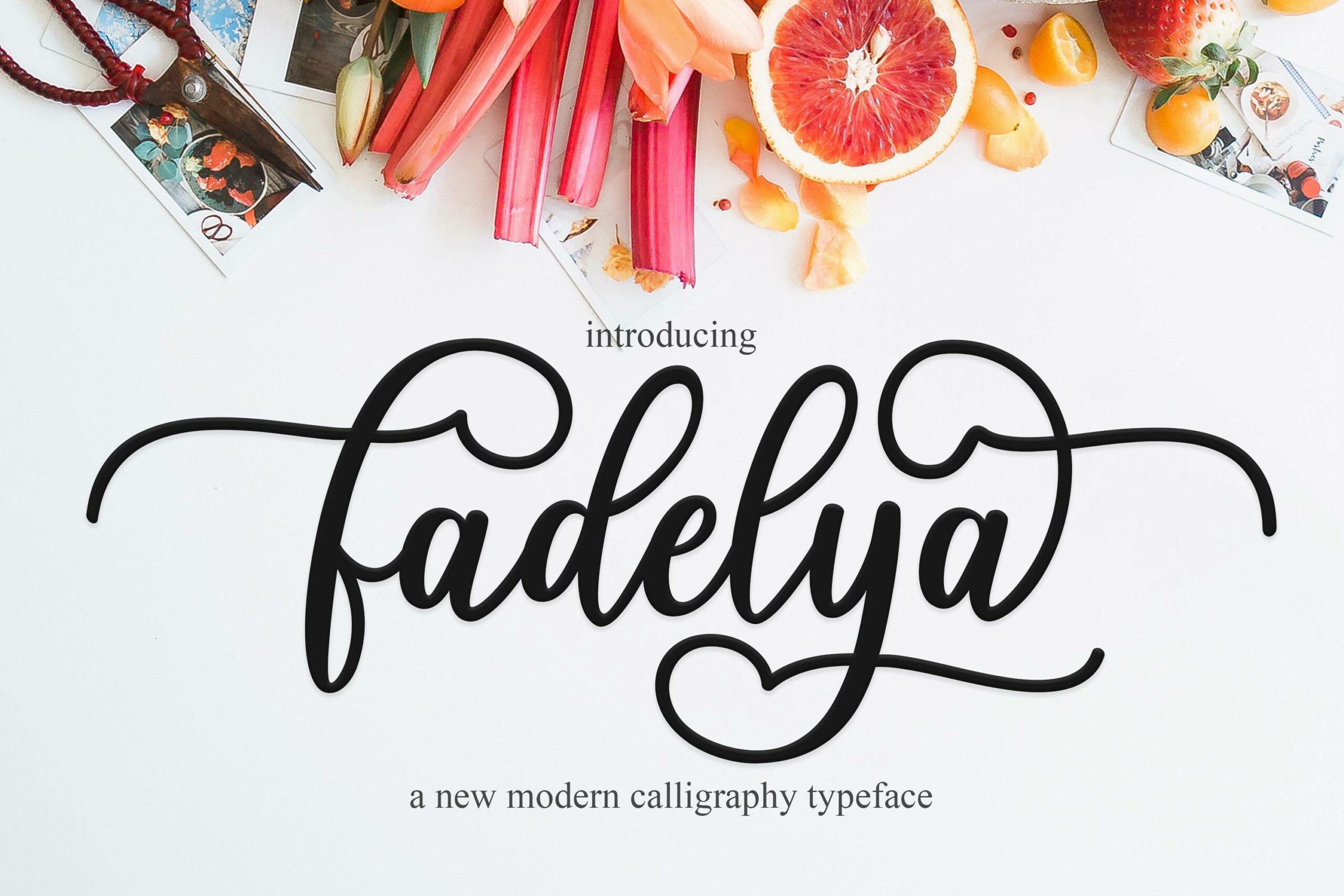
INTRODUCING Fadelya Script is a modern calligraphy font with the current handwriting style, this font is perfect for branding, wedding invites, magazines, mugs, business cards, quotes, posters, and more, you can try first if you want to buy this font. The ZIP file are include the following : Fadelya Script TTF Fadelya Script OTF to use a variety of flying machines, you need a program that supports OpenType features such as Adobe Photoshop Cs / Adobe Photoshop CC, Adobe Illustrator CS / Adobe Illustrator CC, Adobe Indesign and Corel Draw and many more programs that support OpenType.If you do not have a program that supports OpenType, you can access all the alternate glyphs using Font Book (Mac) or Character Map (Windows) If you have any question, don’t hesitate to contact me by email  Thanks and happy designing 🙂 Thank You for purchase! INTRODUCING Fadelya Script is a modern calligraphy font with the current handwriting style, this font is perfect for branding, wedding invites, magazines, mugs, business cards, quotes, posters, and more, you can try first if you want to buy this font. The ZIP file are include the following : Fadelya Script TTF Fadelya Script OTF to use a variety of flying machines, you need a program that supports OpenType features such as Adobe Photoshop Cs / Adobe Photoshop CC, Adobe Illustrator CS / Adobe Illustrator CC, Adobe Indesign and Corel Draw and many more programs that support OpenType.If you do not have a program that supports OpenType, you can access all the alternate glyphs using Font Book (Mac) or Character Map (Windows) If you have any question, don’t hesitate to contact me by email  Thanks and happy designing 🙂 Thank You for purchase! INTRODUCING Fadelya Script is a modern calligraphy font with the current handwriting style, this font is perfect for branding, wedding invites, magazines, mugs, business cards, quotes, posters, and more, you can try first if you want to buy this font. The ZIP file are include the following : Fadelya Script TTF Fadelya Script OTF to use a variety of flying machines, you need a program that supports OpenType features such as Adobe Photoshop Cs / Adobe Photoshop CC, Adobe Illustrator CS / Adobe Illustrator CC, Adobe Indesign and Corel Draw and many more programs that support OpenType.If you do not have a program that supports OpenType, you can access all the alternate glyphs using Font Book (Mac) or Character Map (Windows) If you have any question, don’t hesitate to contact me by email  Thanks and happy designing 🙂 Thank You for purchase! INTRODUCING Fadelya Script is a modern calligraphy font with the current handwriting style, this font is perfect for branding, wedding invites, magazines, mugs, business cards, quotes, posters, and more, you can try first if you want to buy this font. The ZIP file are include the following : Fadelya Script TTF Fadelya Script OTF to use a variety of flying machines, you need a program that supports OpenType features such as Adobe Photoshop Cs / Adobe Photoshop CC, Adobe Illustrator CS / Adobe Illustrator CC, Adobe Indesign and Corel Draw and many more programs that support OpenType.If you do not have a program that supports OpenType, you can access all the alternate glyphs using Font Book (Mac) or Character Map (Windows) If you have any question, don’t hesitate to contact me by email  Thanks and happy designing 🙂 Thank You for purchase!